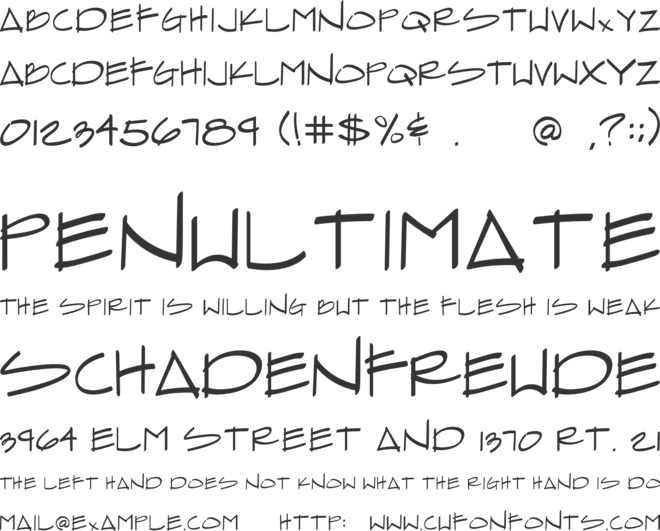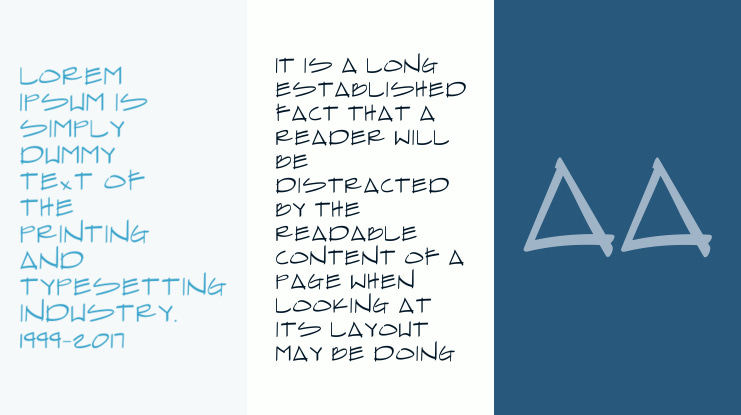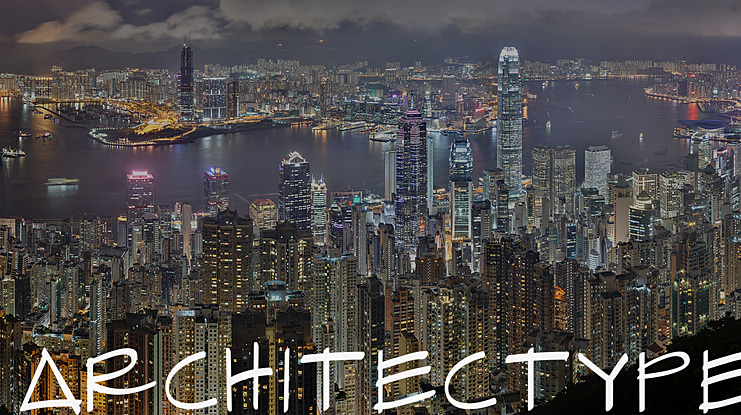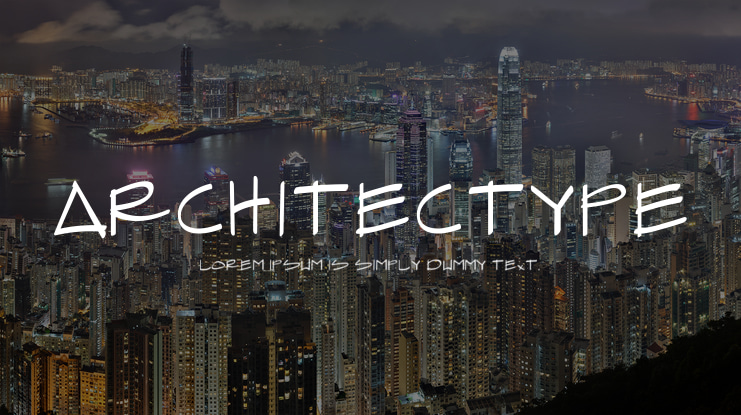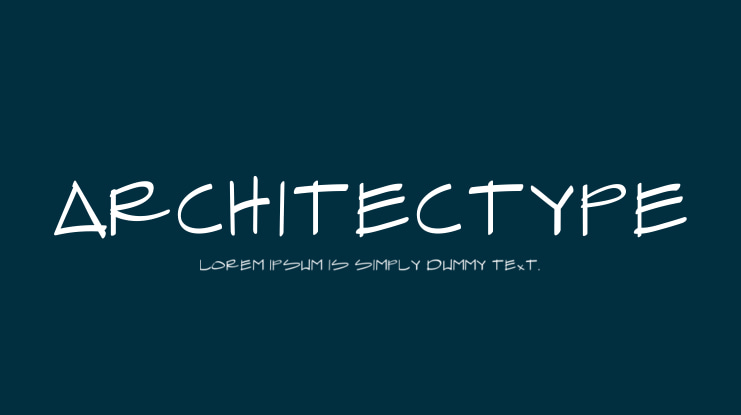
Architectype Font
Please introduce Architectype. It is a native architect hand-written style typeface that is specifically built to suit the designer's need of a good looking architectural style.
Architectype is one style characther of uppercase that represent architect's notes on presentation. It is suitable to be used for dimension drawings, interior details, and other markings.